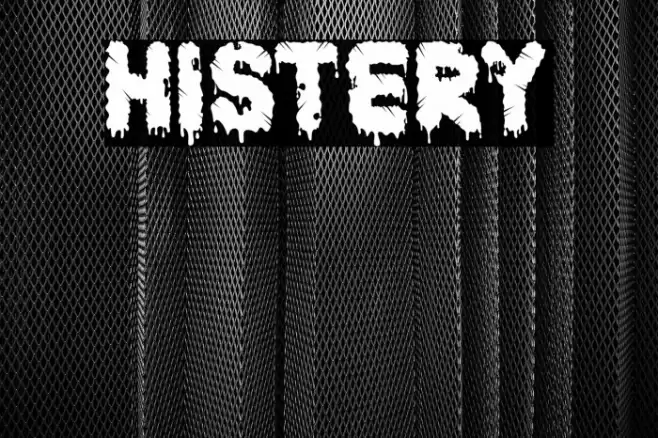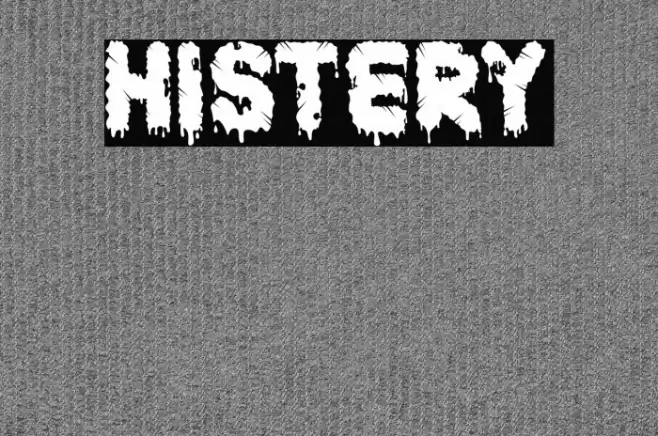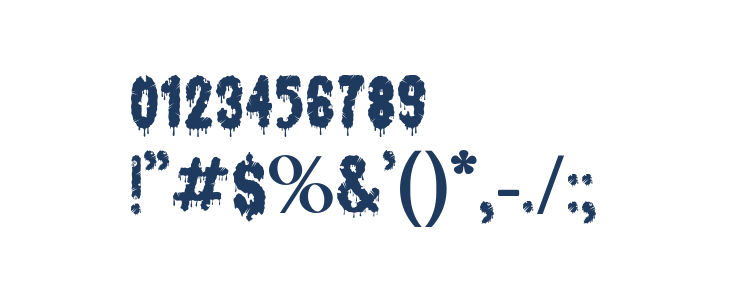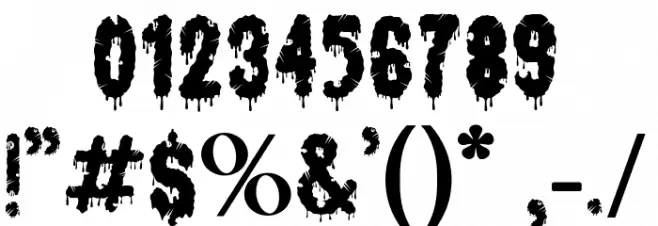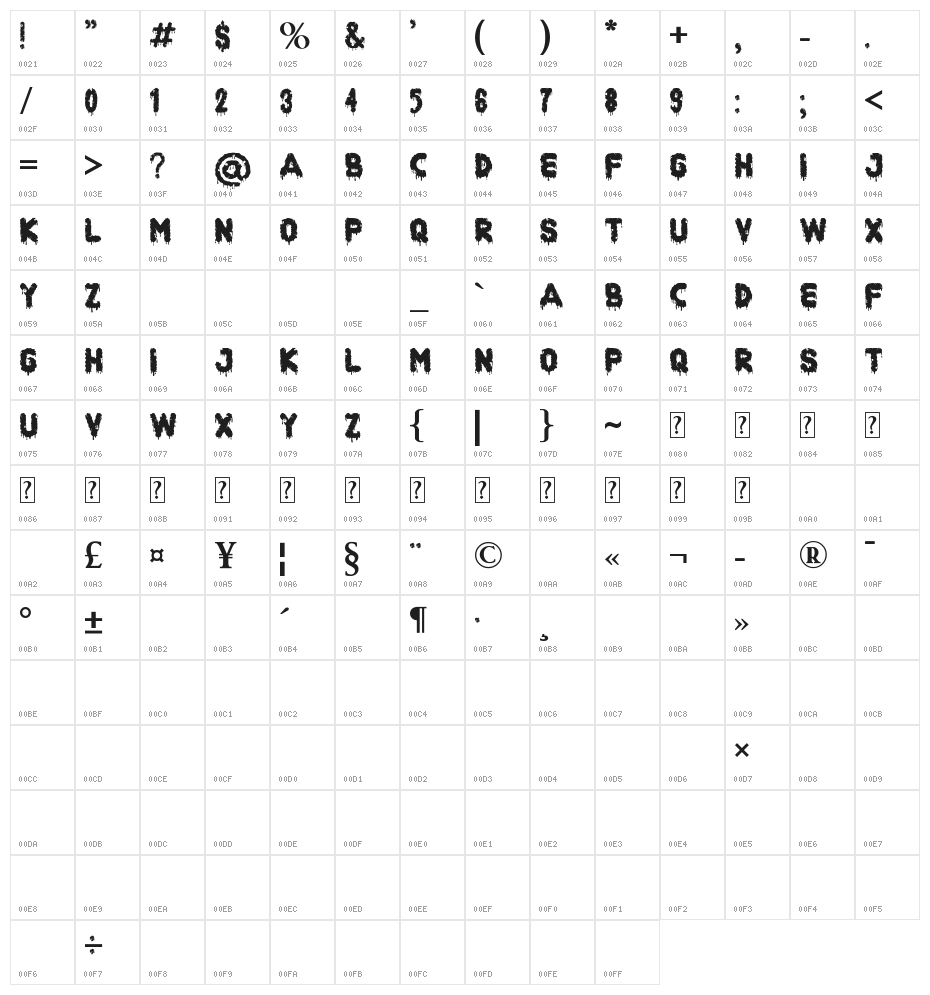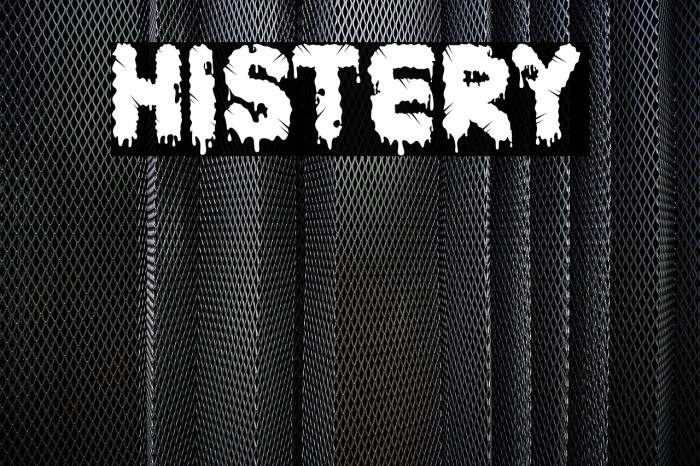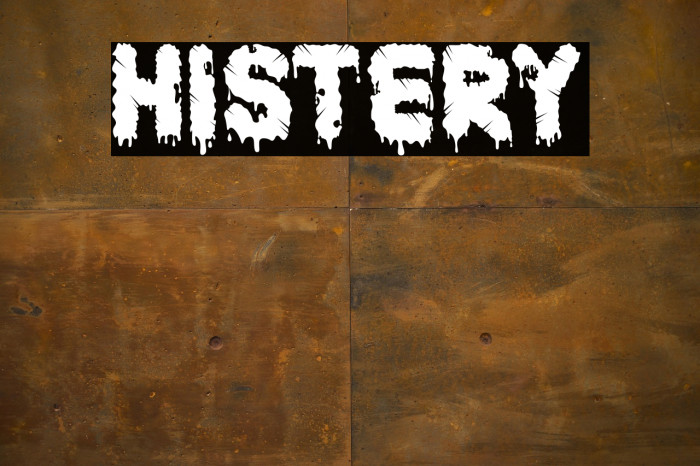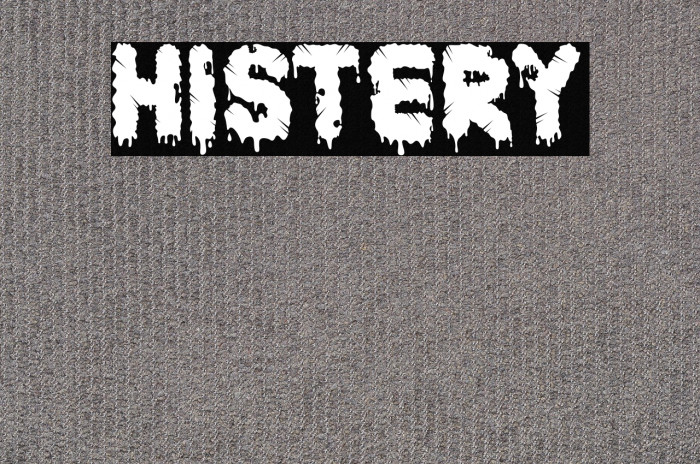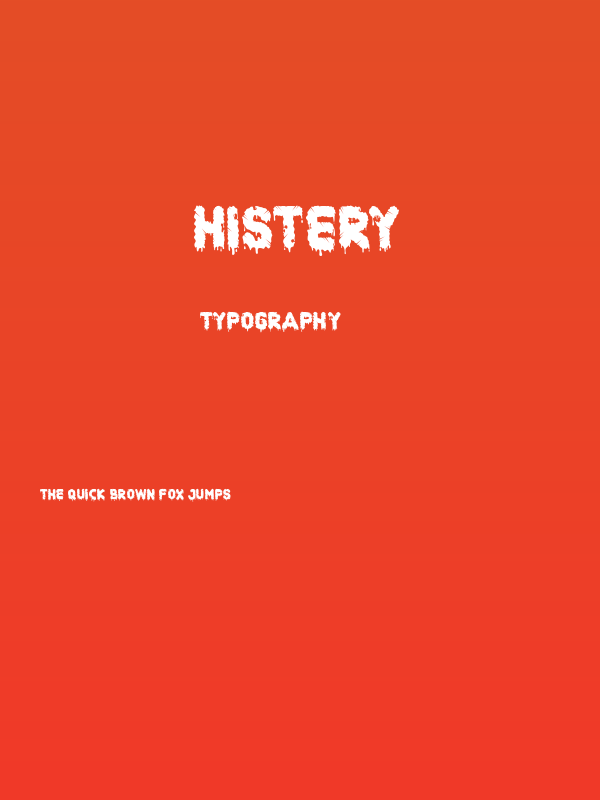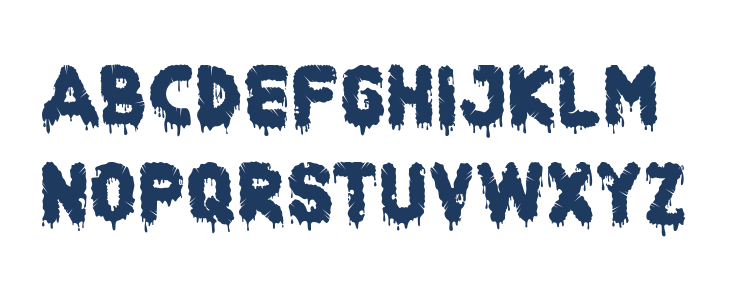
Histery Font
Histery Description
This font features a bold and dramatic style with a dripping effect that gives it a horror or Halloween-themed appearance. The characters are thick and substantial, with uneven edges that mimic the look of melting or dripping liquid. This unique design element makes it stand out, adding a sense of movement and fluidity to the text. The uppercase and lowercase letters maintain a consistent style, ensuring readability while still embracing the chaotic aesthetic. Numbers and special characters are equally stylized, making this font suitable for thematic projects that require a touch of the macabre or eerie.
- Proposed Projects: Ideal for Halloween event posters, horror movie titles, themed party invitations, and spooky merchandise designs.